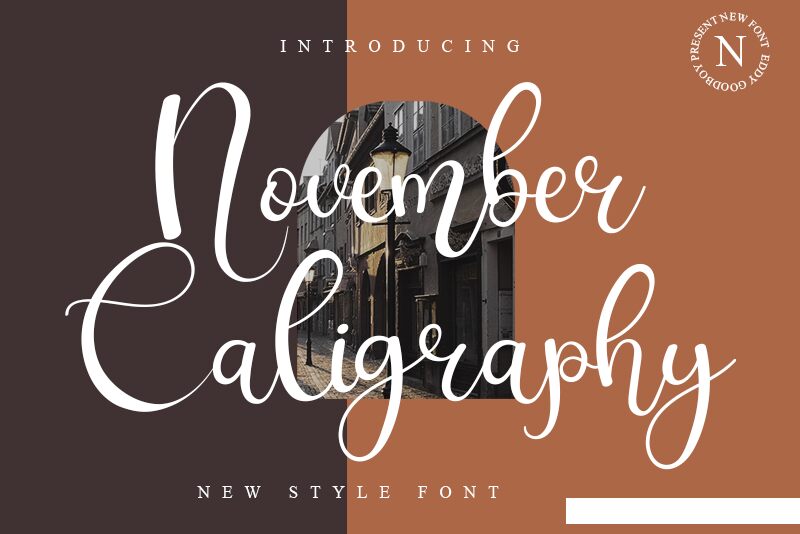
November Caligraphy, designed by Nur Edi Prayitno, is a light calligraphy font perfect for projects that need an elegant touch. From wedding invitations to business cards, this font will create beautiful designs with its intricate swirls and loops.
November Caligraphy
Nur Edi Prayitno